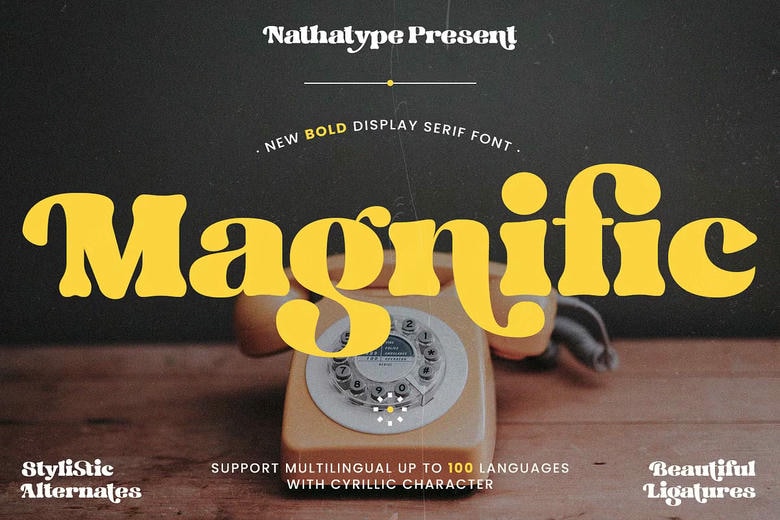
Magnific Font
Magnific is a bold display serif font that expresses powerful yet welcoming vibe. It’s modern, simple, easy to read, and works equally as well in header and body text-what’s not to love! Beside that, this font has more fascinating features that helps you maximize your design.
Magnific Serif Font